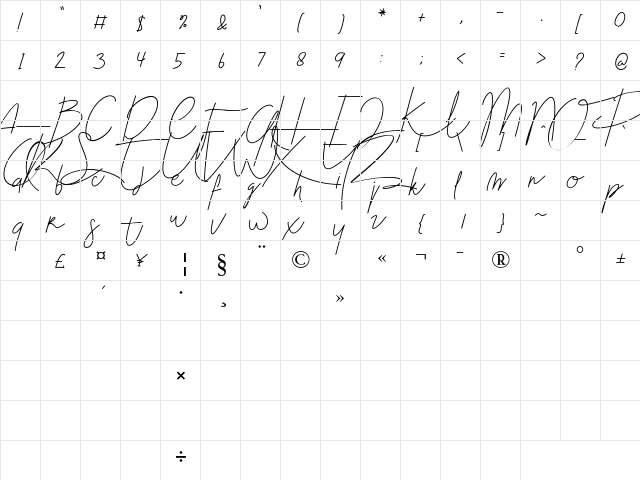
Blenheim Signature Regular
Design Context for Blenheim Signature Typeface
Blenheim Signature is a composed and adaptable typeface that performs quietly and consistently across a wide range of design contexts.